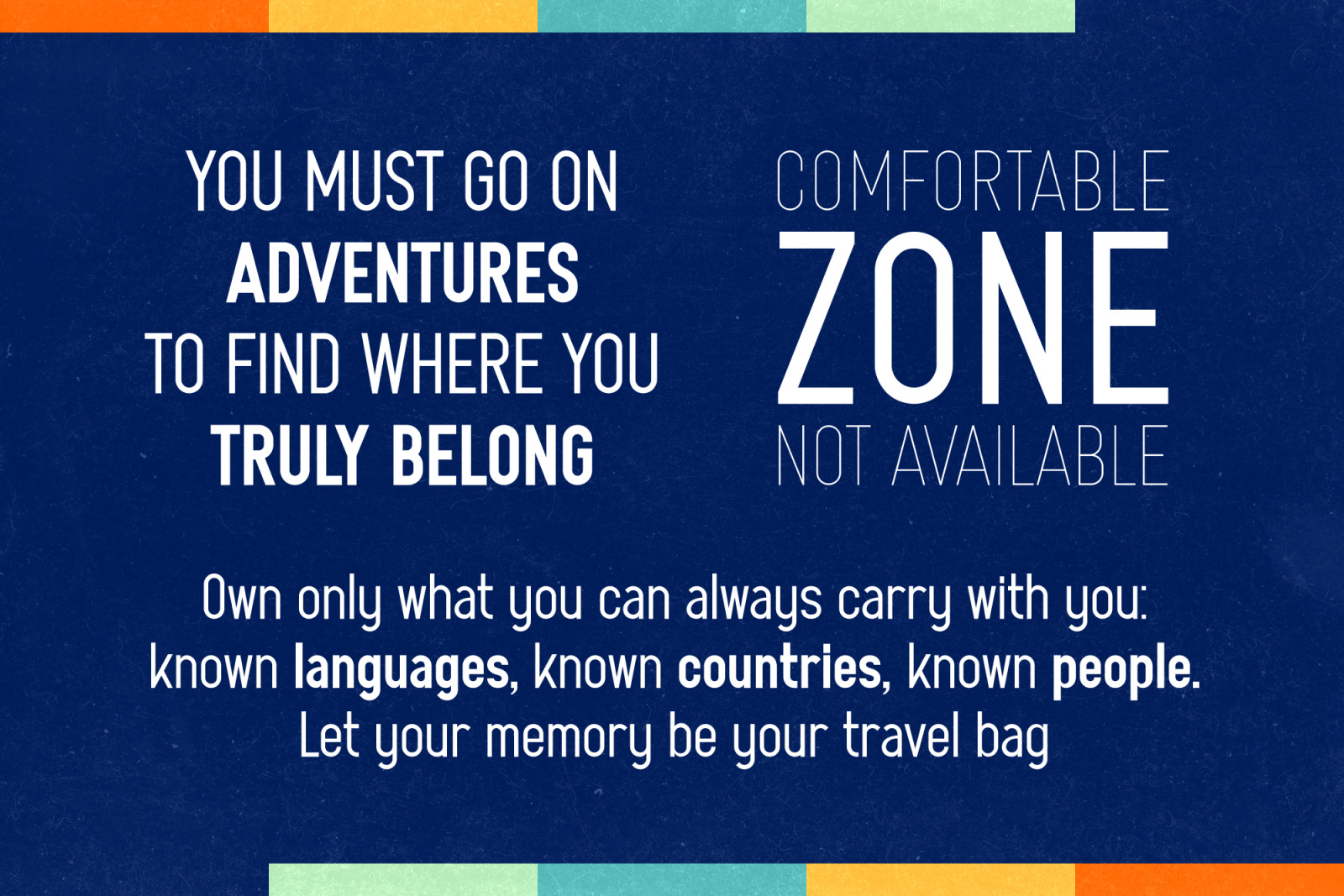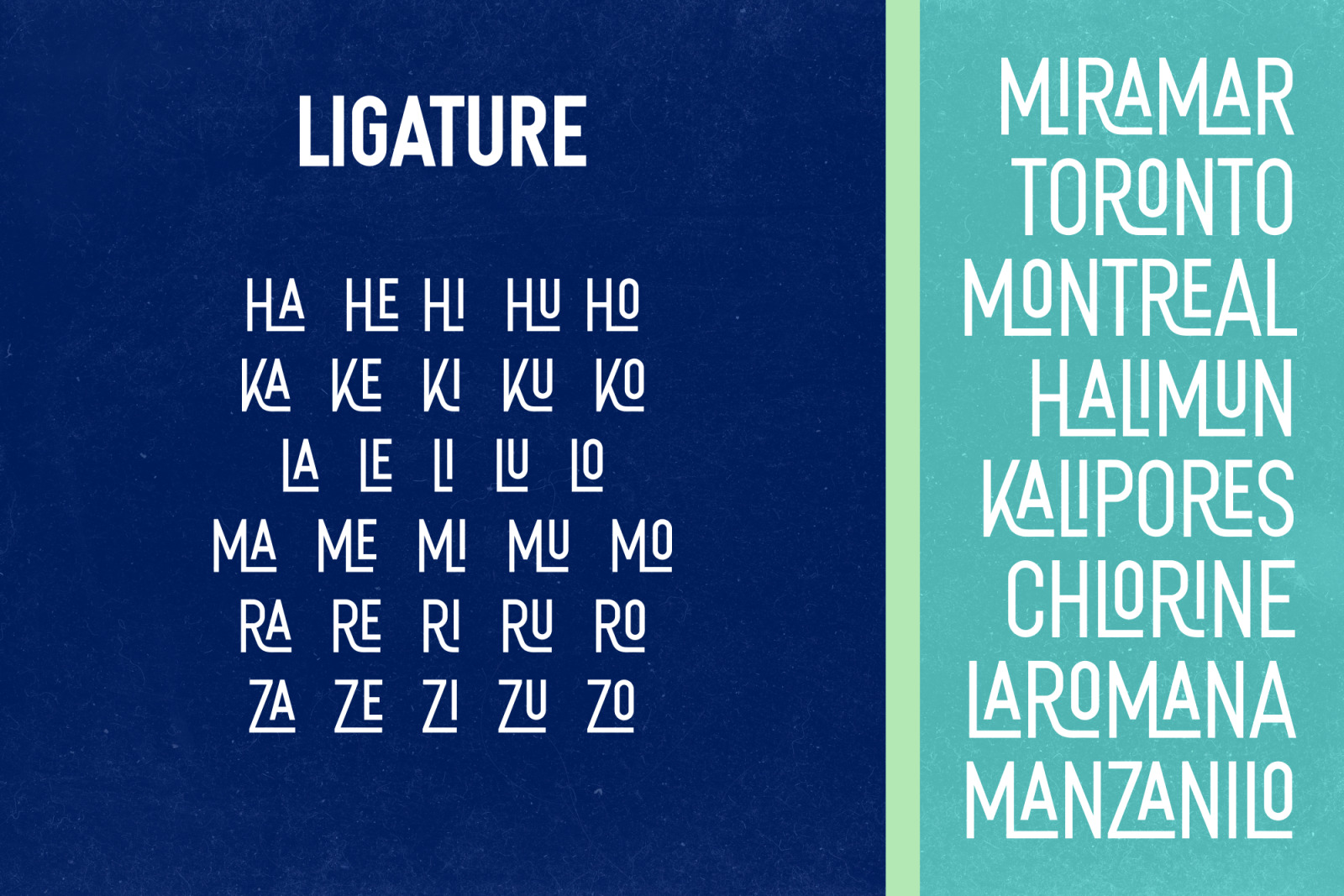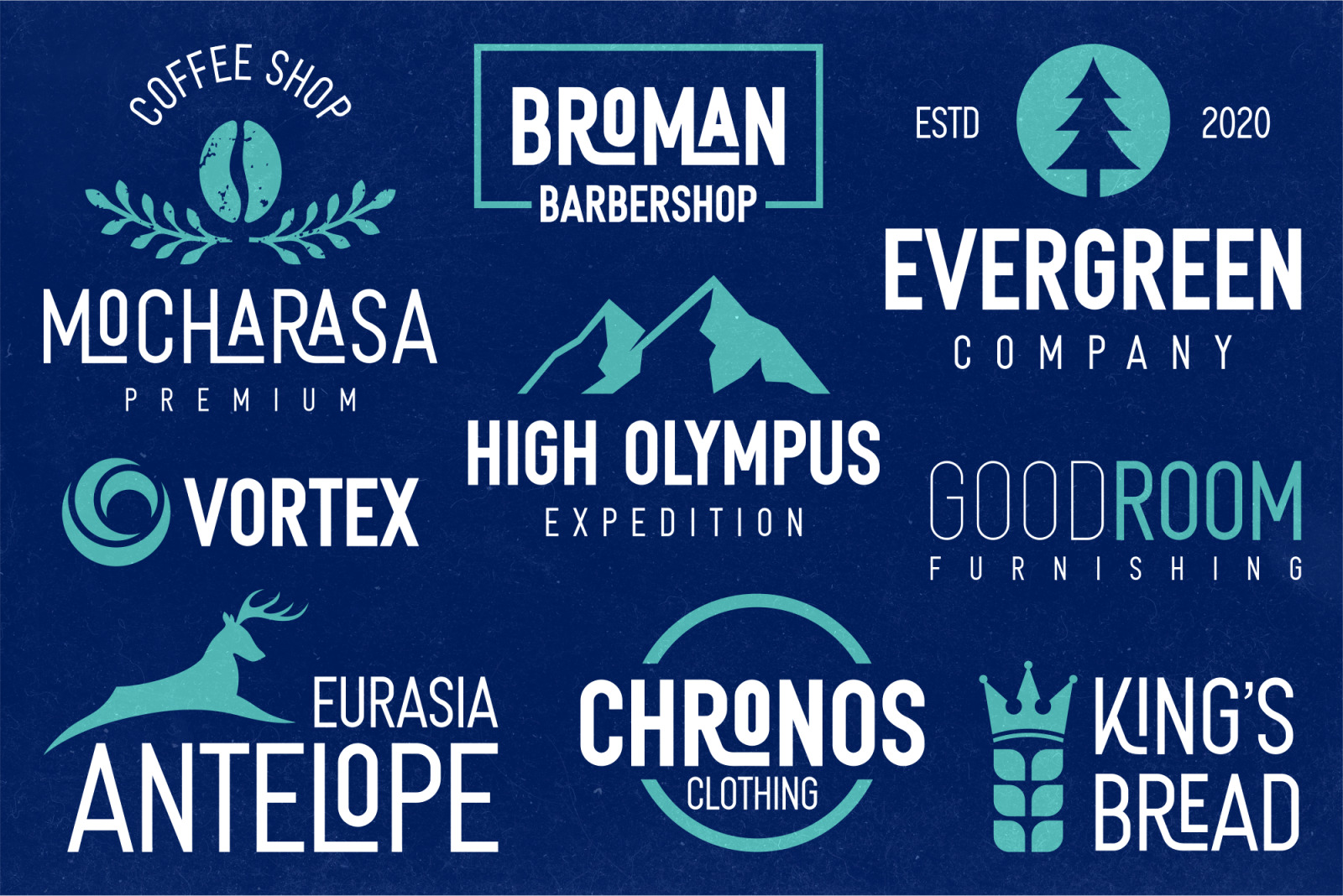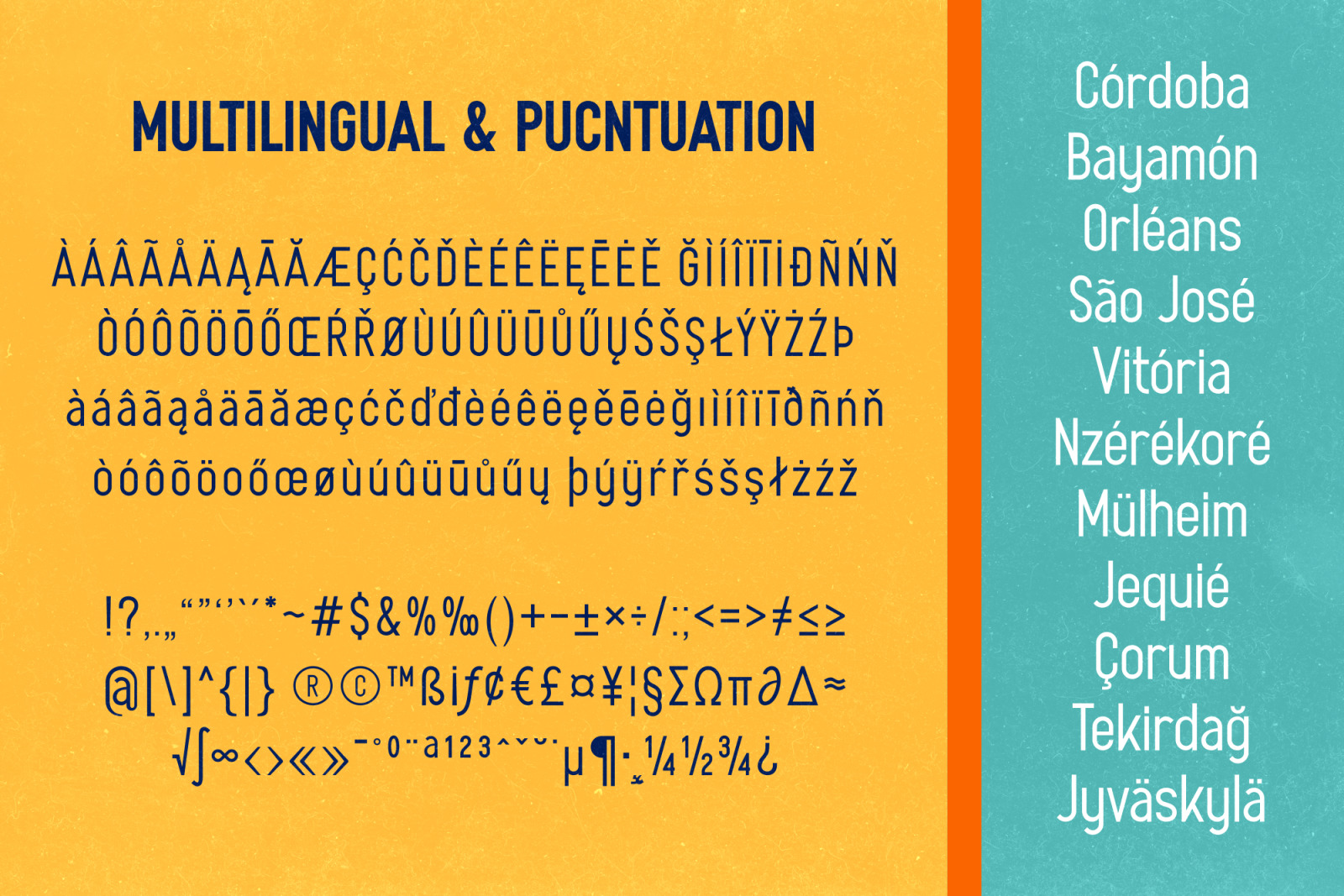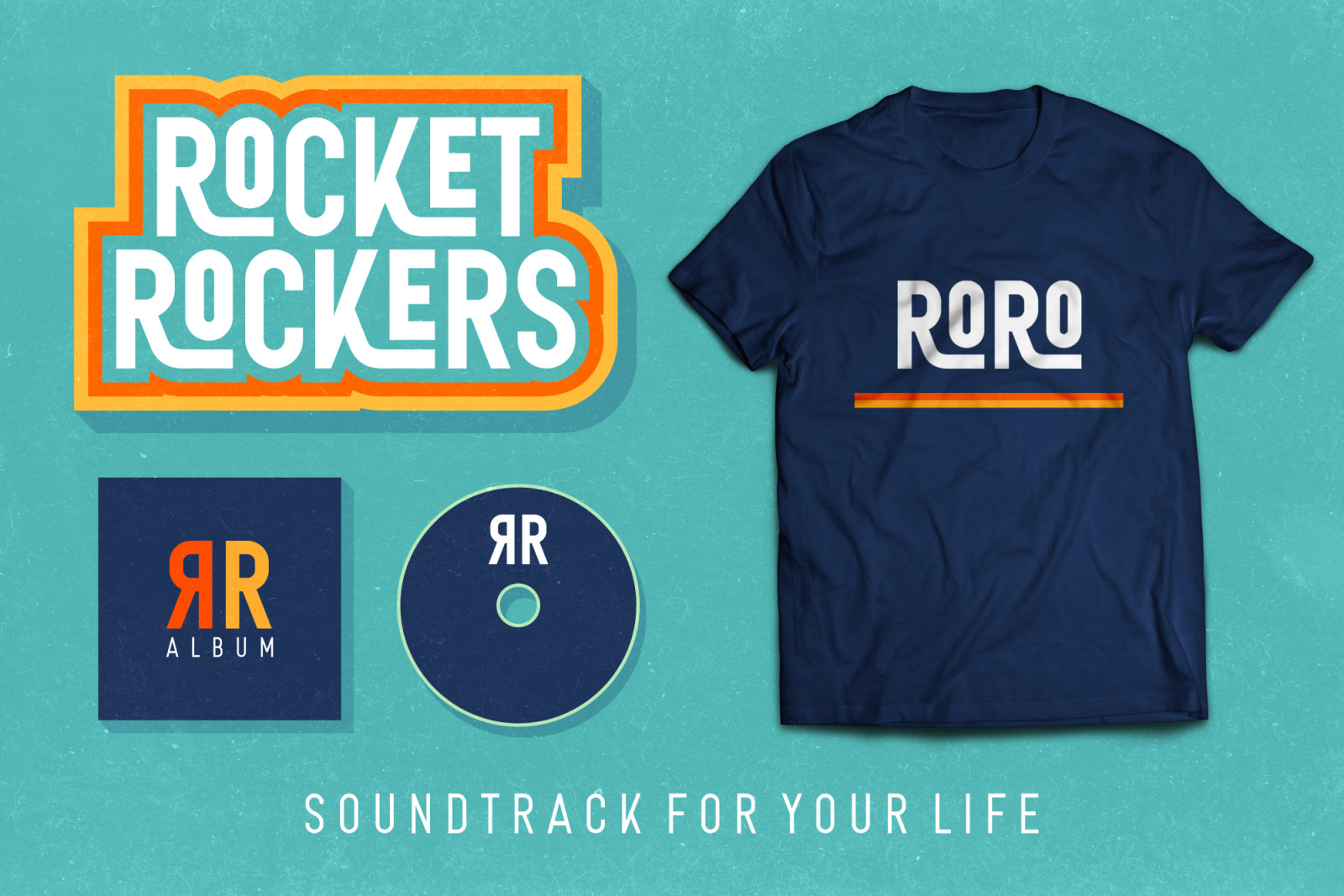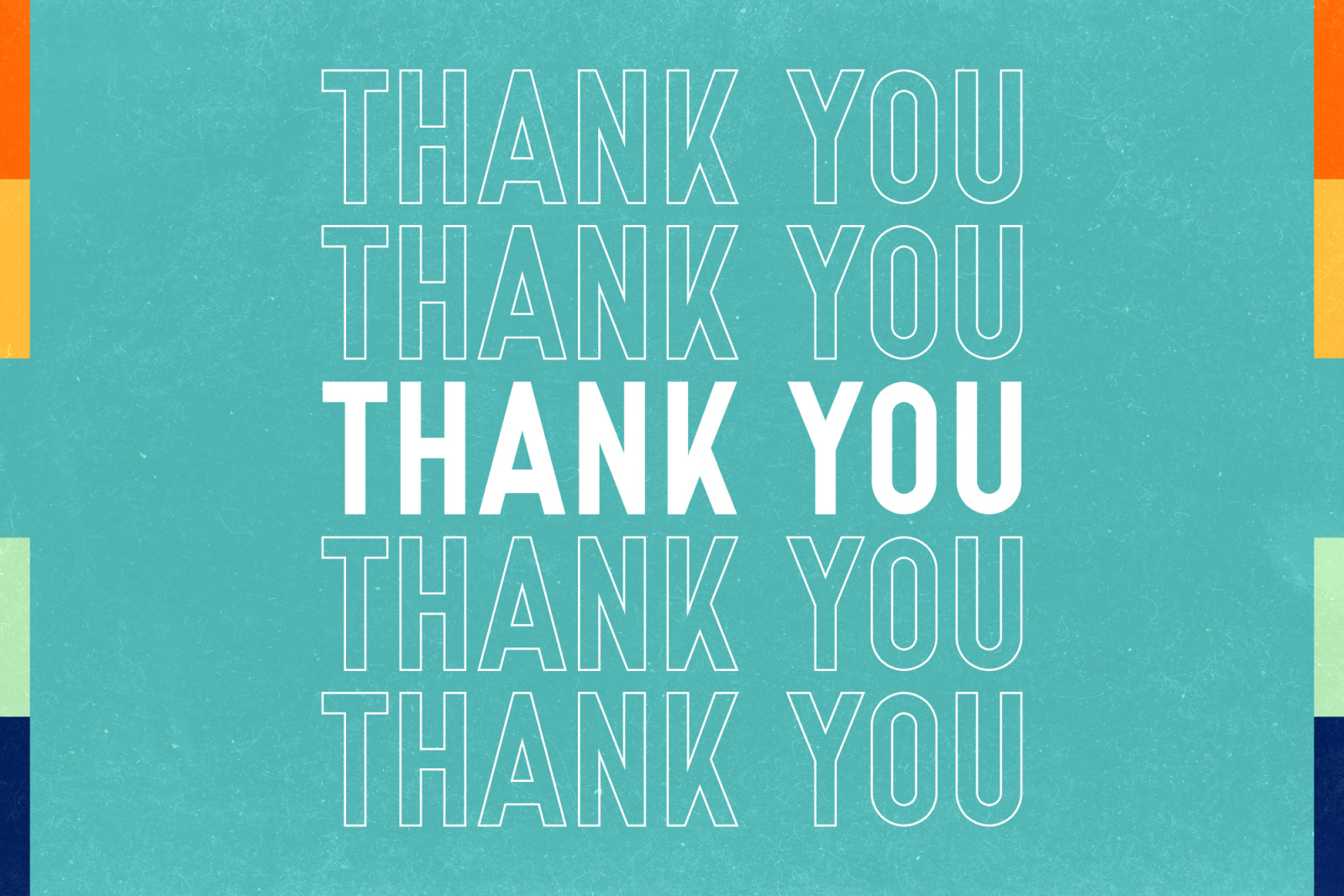
THERIDGE - Multipurpose condensed fonts
Hi, this is my new font! THERIDGE fonts.
THERIDGE is a multipurpose condensed font that comes in 3 weights: light, normal, and bold. THERIDGE is made clean, neat and attractive. THERIDGE themed retro, adventure, urban, hipster, vintage but still modern. These fonts are great for creating desired projects like logos, posters, headlines, albums, quotes, apparel and more. So, do you have a client who needs a slick new logo, or do you design social media posts and posters? These fonts are perfect for you! Please take a look at the pictures I have prepared for you. I can't wait to see what you can do with them and have fun while being creative! Happy shopping :)
THERIDGE fonts features:
- Uppercase and lowercase letters
- Numeral, symbol, and punctuation
- Ligature style
- Multilingual letters